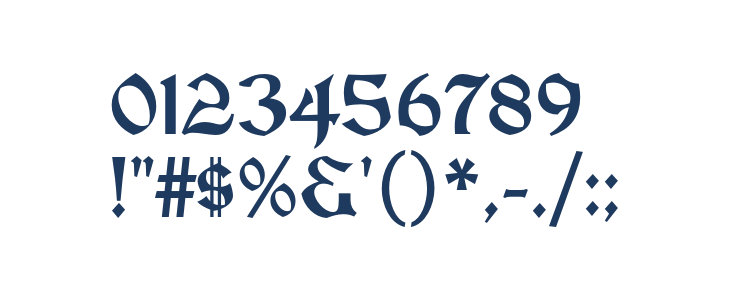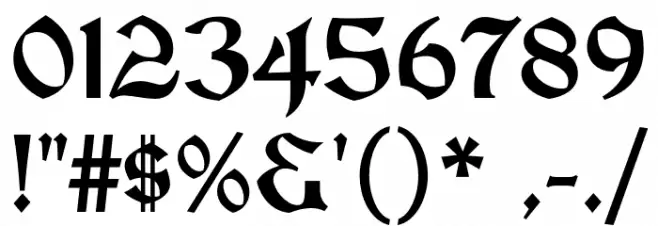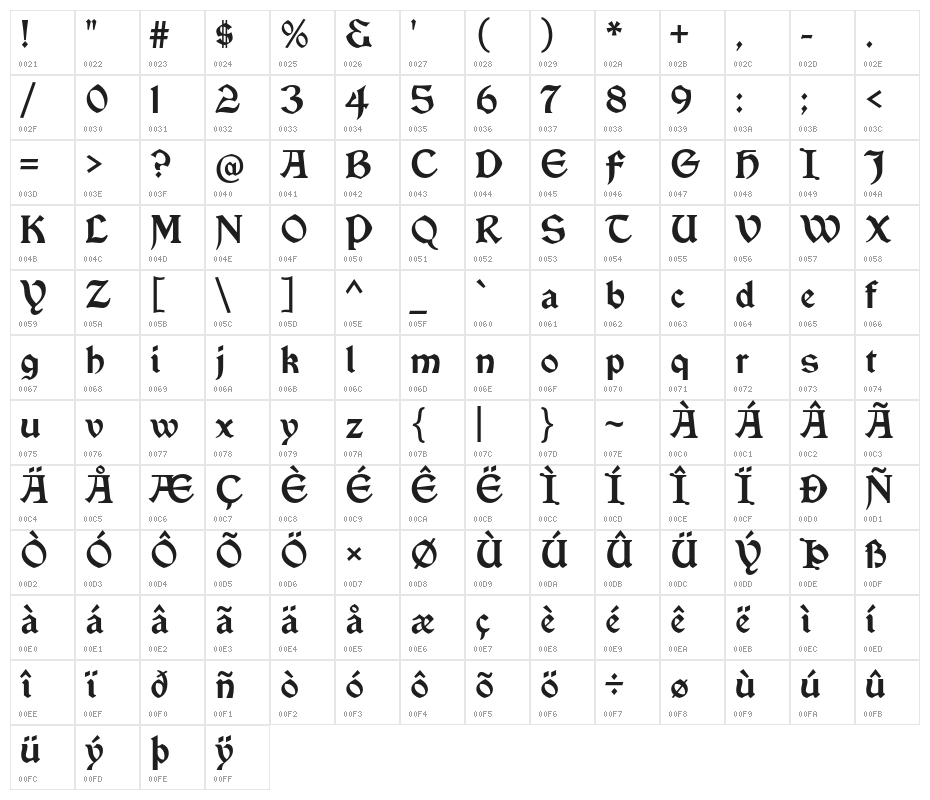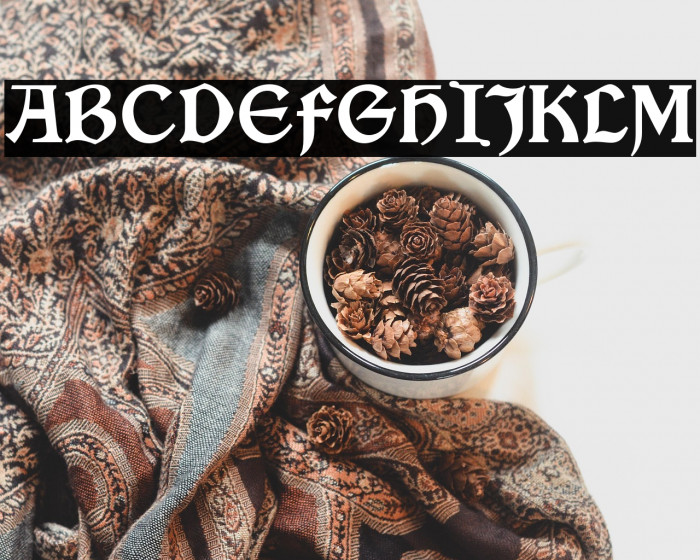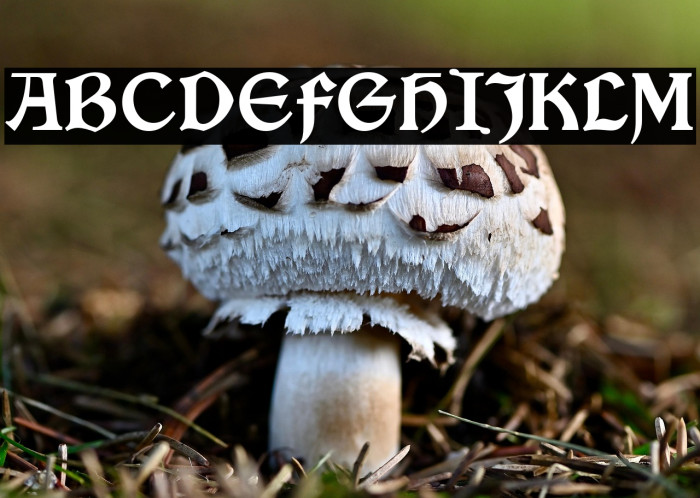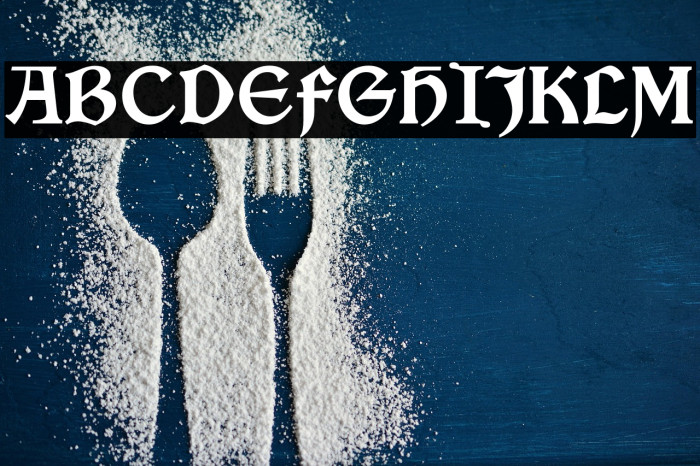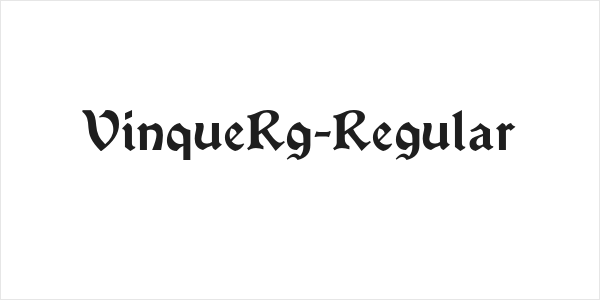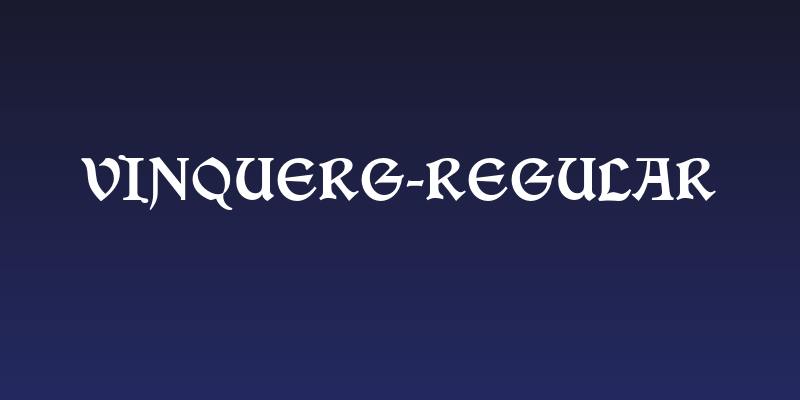
VinqueRg-Regular Font
VinqueRg-Regular Description
This font features a bold and striking design with a strong blackletter influence. The characters are sharply defined with a mix of angular and curved elements, giving it a distinct medieval or gothic appearance. The uppercase letters are particularly ornate, with intricate details that add to the overall decorative style. The lowercase letters maintain the same boldness, ensuring consistency throughout the typeface. The numerals and special characters are equally robust, making them suitable for impactful designs. This font is ideal for projects that require a historical or dramatic flair.
| Proposed Projects | Ideal for use in branding, posters, book covers, or any project needing a historical or dramatic touch. |